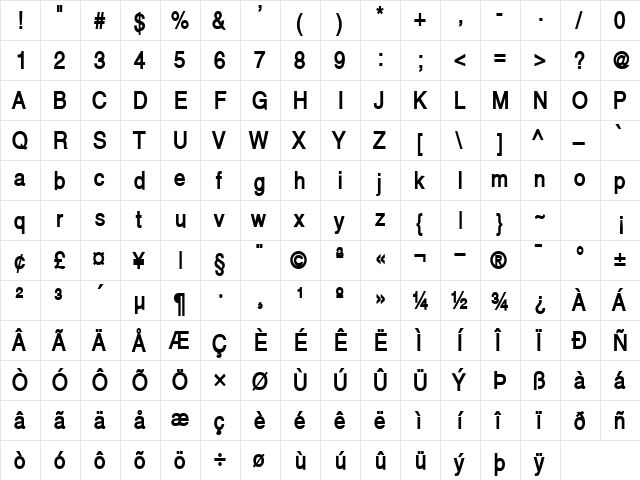
Alps-Condensed Bold
Design Context for Alps-Condensed Typeface
Alps-Condensed is a composed and adaptable typeface that performs quietly and consistently across a wide range of design contexts. Its bold stroke weight gives it real presence on the page. Its narrow stance lets it pack a punch even in space-constrained designs.
Pro Tip: Use Alps-Condensed in both headline and body roles to test its range before committing to a single application.